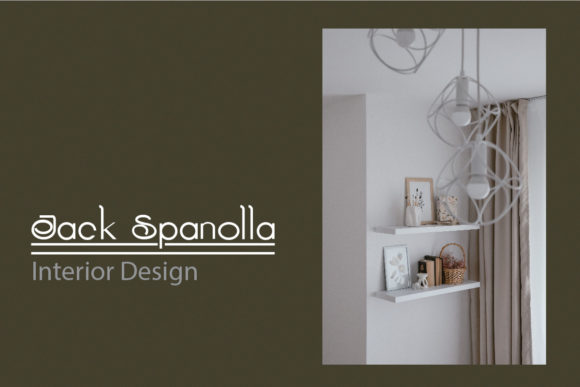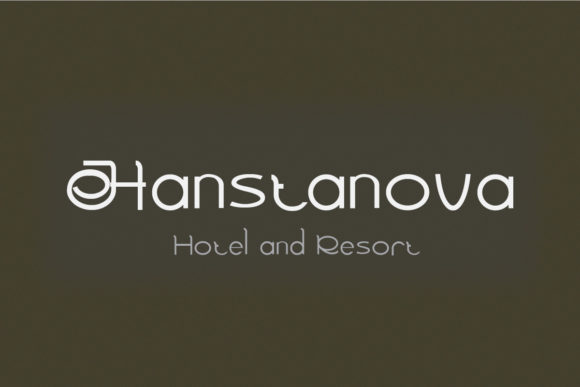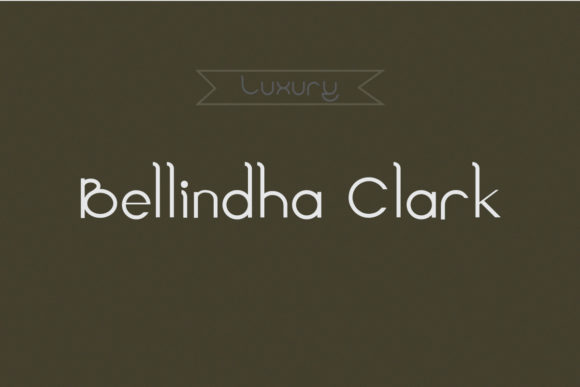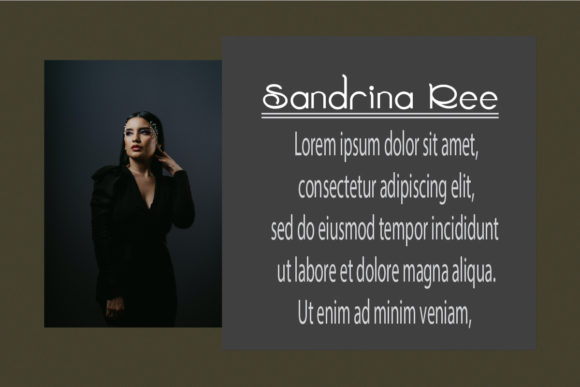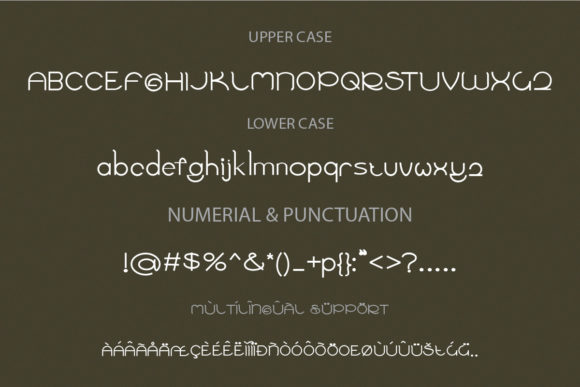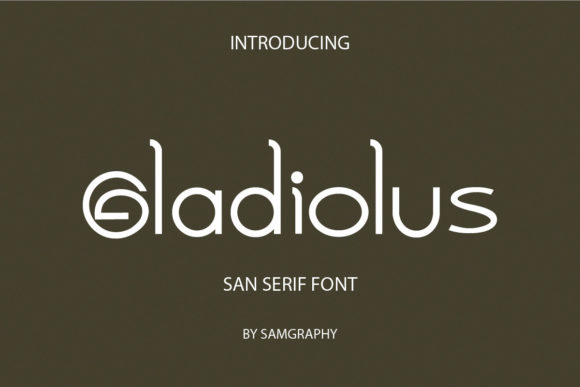
Introducing Gladiolus Font: The Ultimate Modern Sans Serif for Designers
Are you on the hunt for a font that exudes modernity and sophistication? Look no further than Gladiolus Font, a minimal and neat sans serif font that’s perfect for a wide range of design applications. In this article, we’ll dive into the world of Gladiolus Font, exploring its features, benefits, and uses, and why it’s a must-have for designers and crafters alike.
What is Gladiolus Font?
Gladiolus Font is a sleek and contemporary sans serif font that’s designed to bring a touch of modernity to your designs. Its clean lines, simple shapes, and minimalist aesthetic make it an ideal choice for designers who want to create a professional and stylish look. Whether you’re working on a web design project, creating business cards, or crafting a logo, Gladiolus Font is the perfect choice.
Key Features of Gladiolus Font
So, what makes Gladiolus Font so special? Here are some of its key features:
- Minimalist design: Gladiolus Font boasts a clean and minimalist design that’s perfect for modern designs.
- Sans serif: The font’s sans serif style gives it a sleek and contemporary look that’s perfect for digital and print designs.
- Highly legible: Gladiolus Font is designed to be highly legible, making it perfect for body text and headings.
- Versatile: The font is versatile and can be used for a wide range of design applications, from web designs to business cards, logos, and more.
Benefits of Using Gladiolus Font
So, why should you choose Gladiolus Font for your design projects? Here are some of the benefits of using this amazing font:
- Instant modern look: Gladiolus Font gives your designs an instant modern look that’s sure to impress.
- Professional feel: The font’s clean and minimalist design gives your designs a professional feel that’s perfect for businesses and brands.
- Easy to read: Gladiolus Font is highly legible, making it easy for readers to quickly scan and understand your content.
- Customizable: The font is highly customizable, allowing you to adjust the size, color, and style to suit your design needs.
Uses of Gladiolus Font
Gladiolus Font is a versatile font that can be used for a wide range of design applications, including:
- Web designs: Use Gladiolus Font to create modern and stylish web designs that are sure to impress.
- Business cards: The font is perfect for creating professional-looking business cards that make a great impression.
- Logos: Gladiolus Font is ideal for creating modern and stylish logos that represent your brand.
- Print designs: The font can be used for a wide range of print designs, including brochures, flyers, and posters.
Tips for Using Gladiolus Font
Here are some tips for using Gladiolus Font in your design projects:
- Pair with other fonts: Gladiolus Font pairs well with other fonts, so don’t be afraid to experiment with different combinations.
- Adjust font size and color: Adjust the font size and color to suit your design needs and create visual hierarchy.
- Use for headings and body text: Use Gladiolus Font for both headings and body text to create a cohesive look.
In conclusion, Gladiolus Font is a modern and stylish sans serif font that’s perfect for designers and crafters who want to create professional-looking designs. Its clean lines, simple shapes, and minimalist aesthetic make it an ideal choice for a wide range of design applications. With its high legibility, versatility, and customizability, Gladiolus Font is a must-have for any designer looking to add a touch of modernity to their designs.